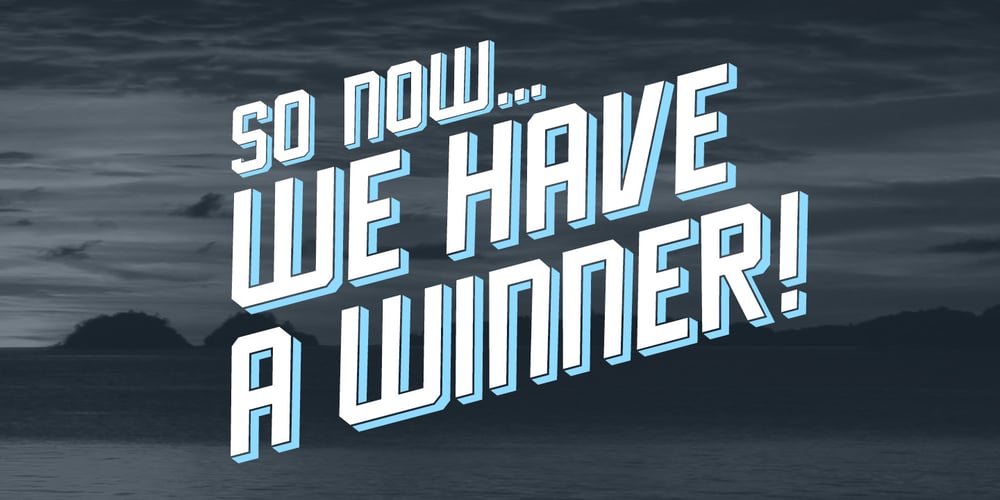
Triat Font Family was designed by published by Cuda Wianki. Triat contains 3 styles and family package options. Triat is modern font suitable for sport and game related themes. It is perfect for headliners, titles etc. Thanks to its variations – full, fill and shadow you can create many color combinations. Triat fill and Triat shadow contains the same metrics so using them is so simple – just copy and paste in place in different layers and then play with colors, gradients, outlines as You like 🙂 Triat full is combination of fill and outline in one color.